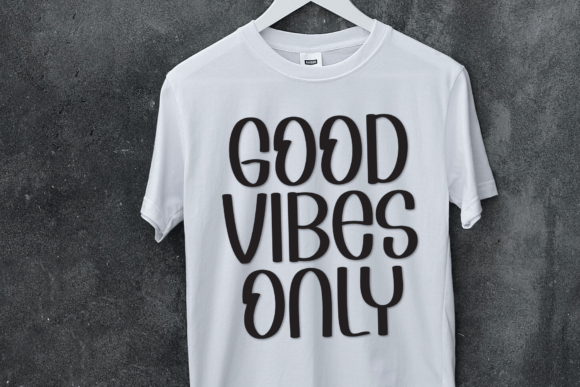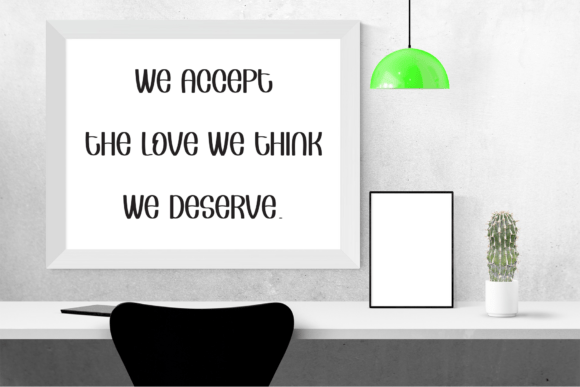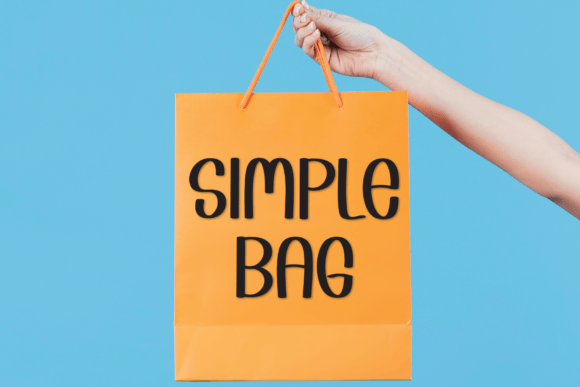
Introduction to Bulking Christmas Font
Immerse yourself in the charming allure of a delicately handcrafted display typeface – Bulking Christmas.
Its endearing and playful character makes it the perfect choice for crafting delightful wedding invitations, heartfelt cards, or any design project that calls for a touch of whimsy Experience how this font effortlessly brings a joyful mood and an intimate, homemade feel to your creative endeavours.